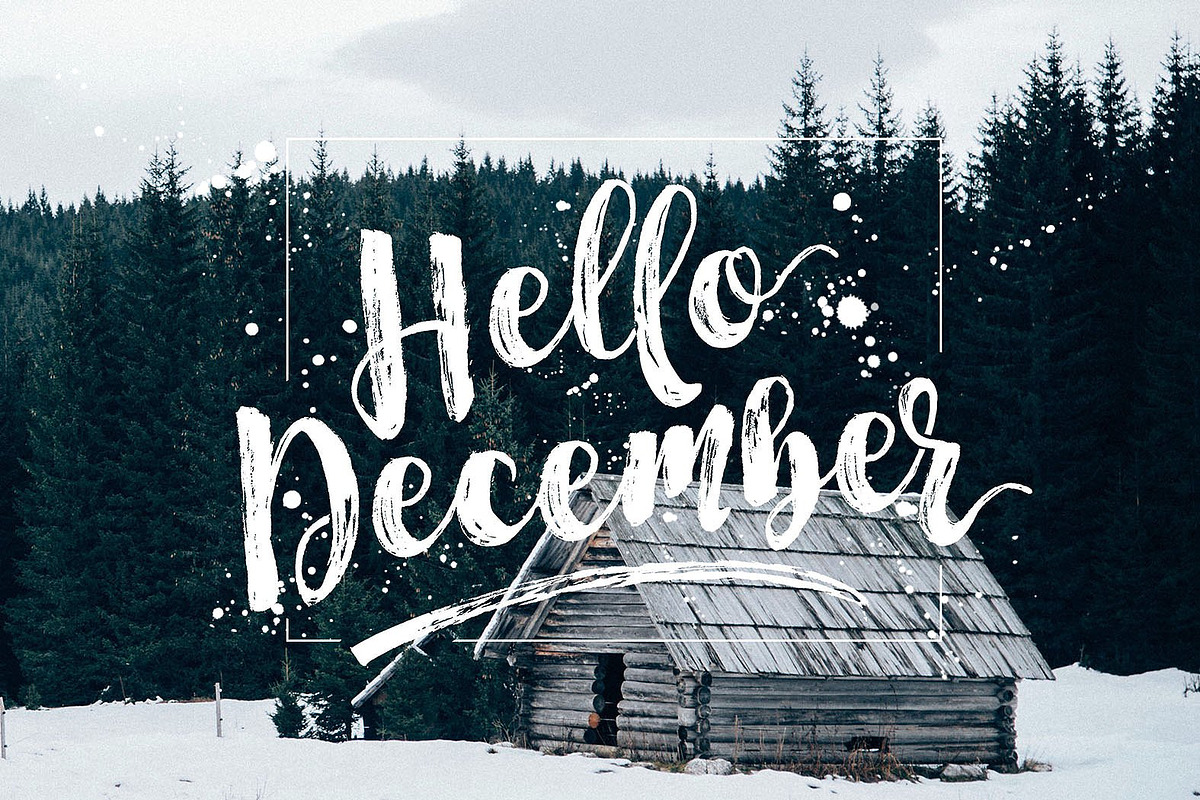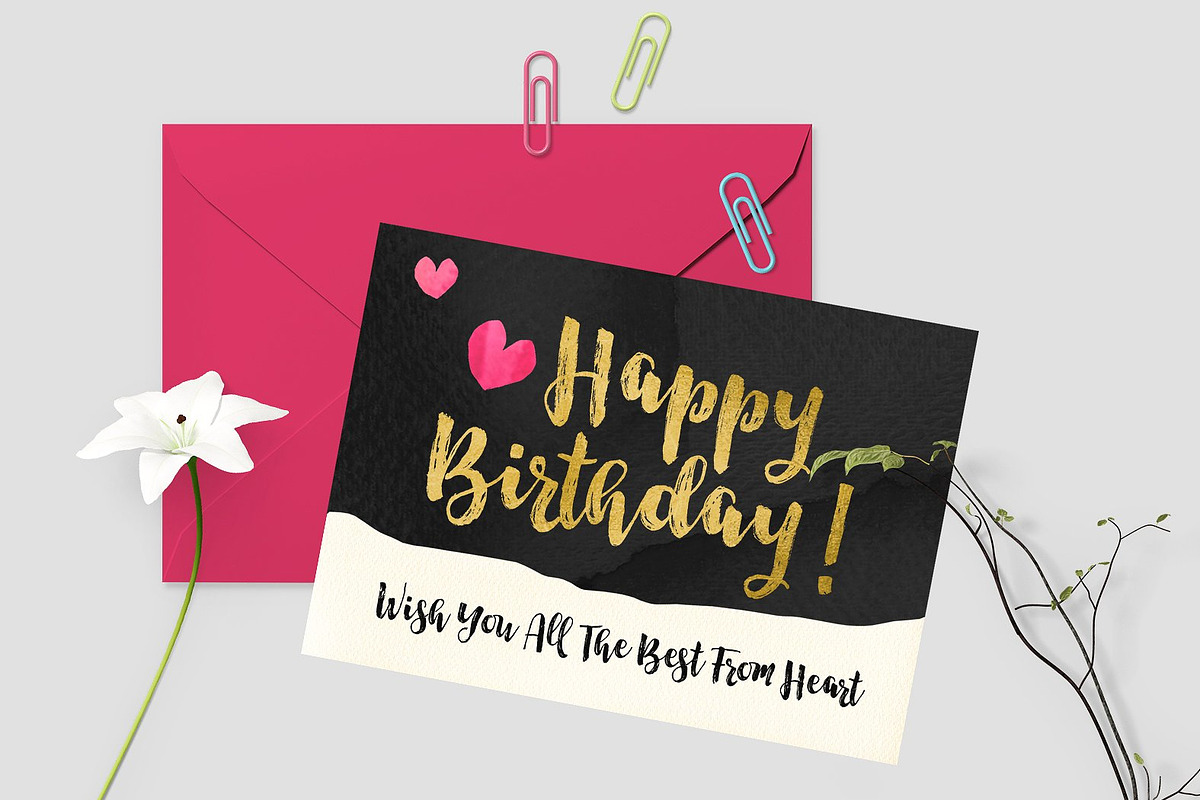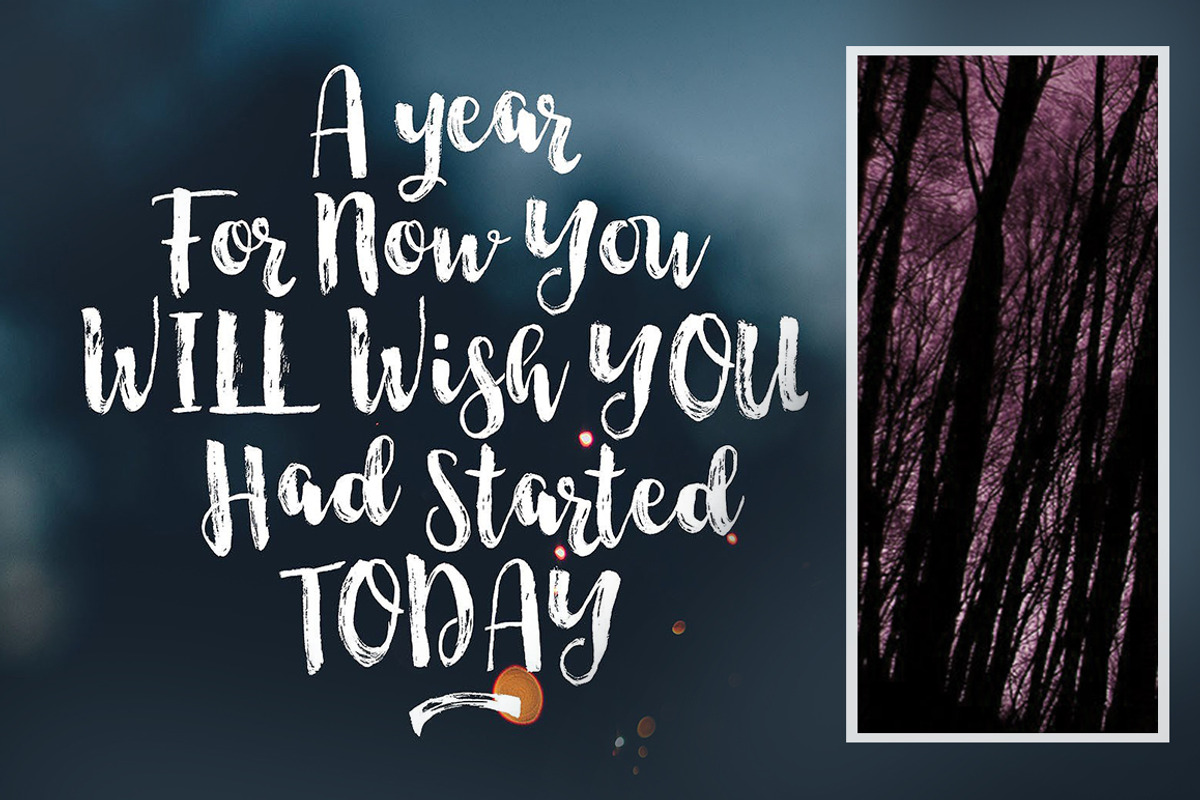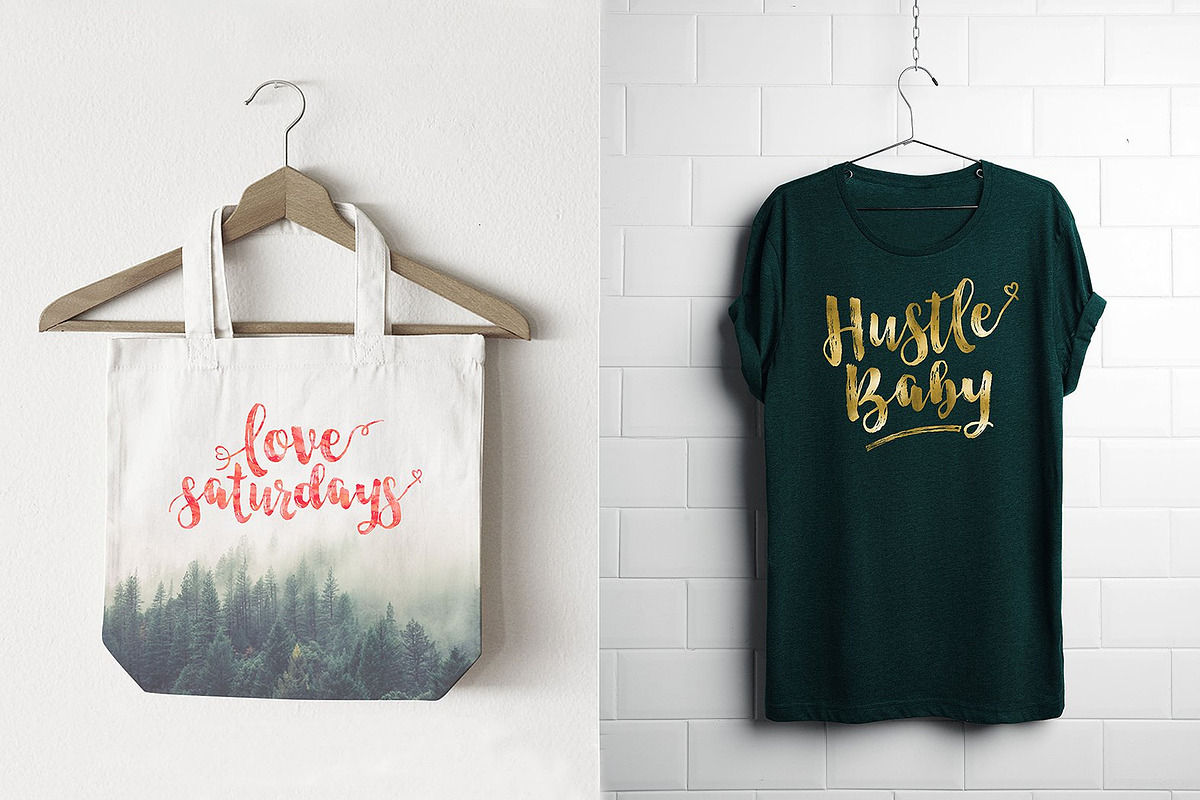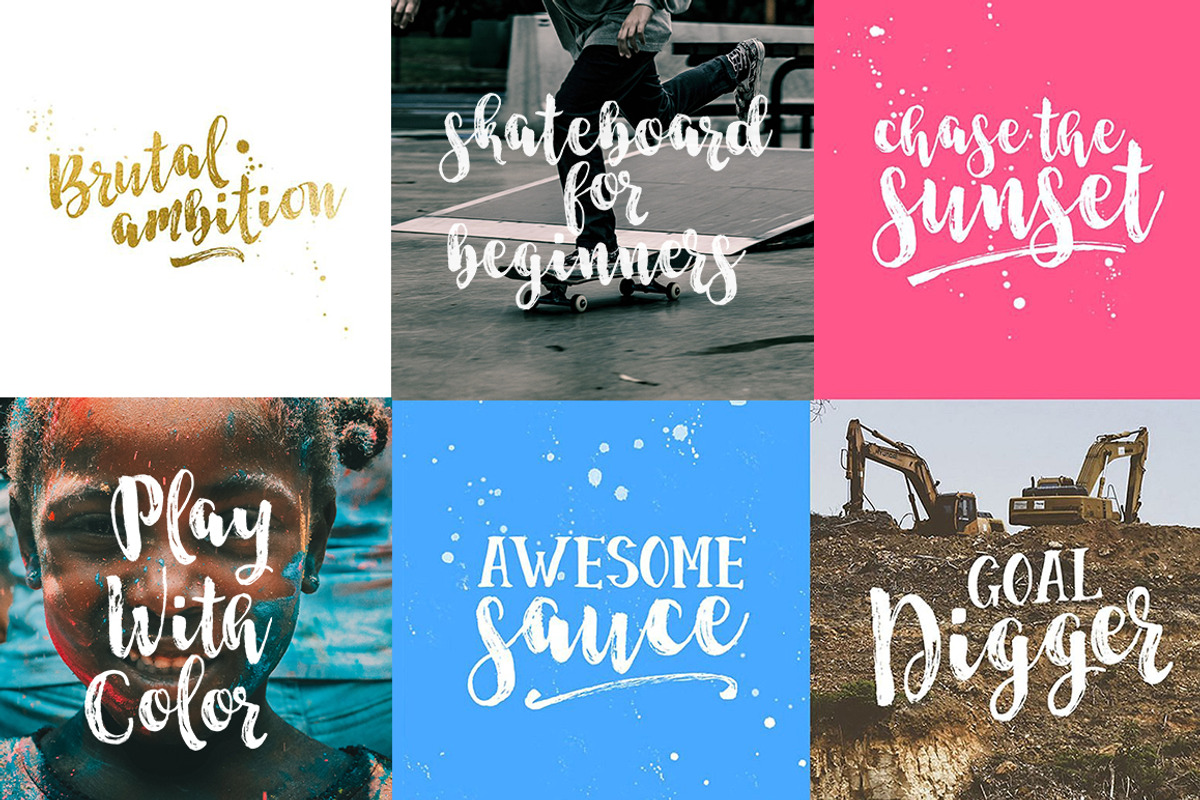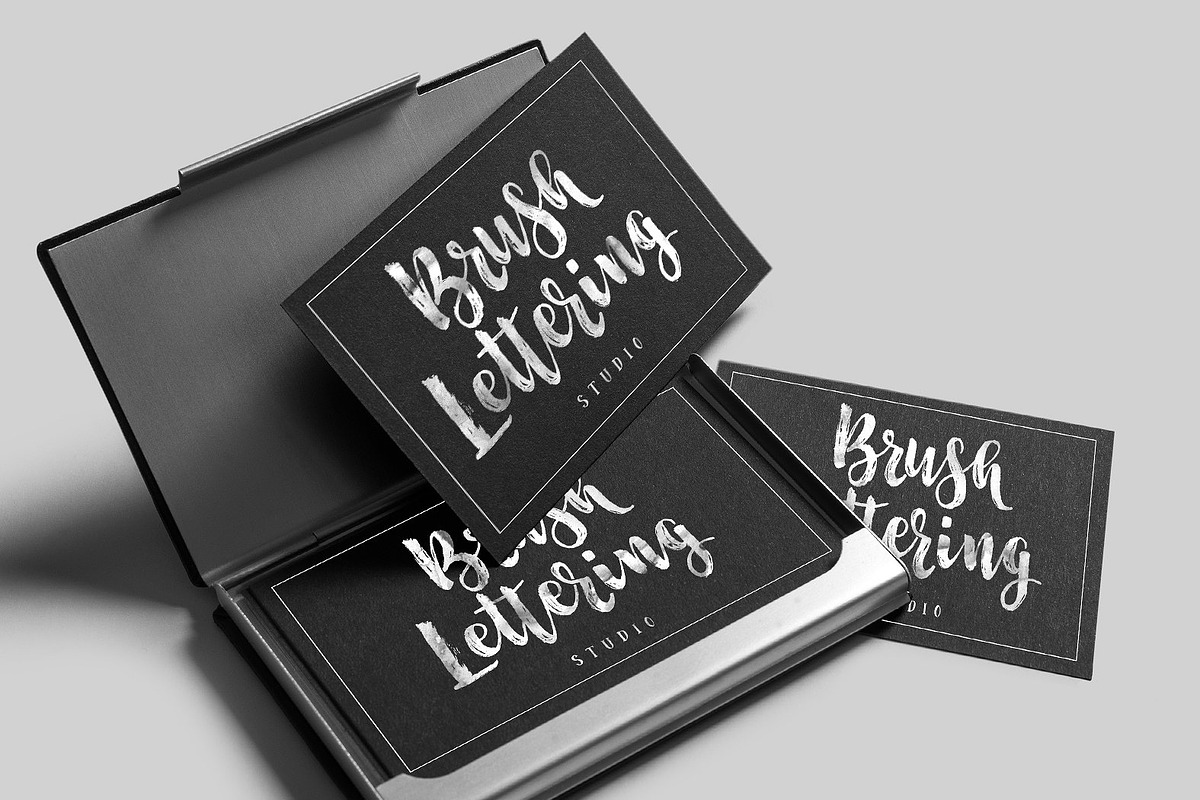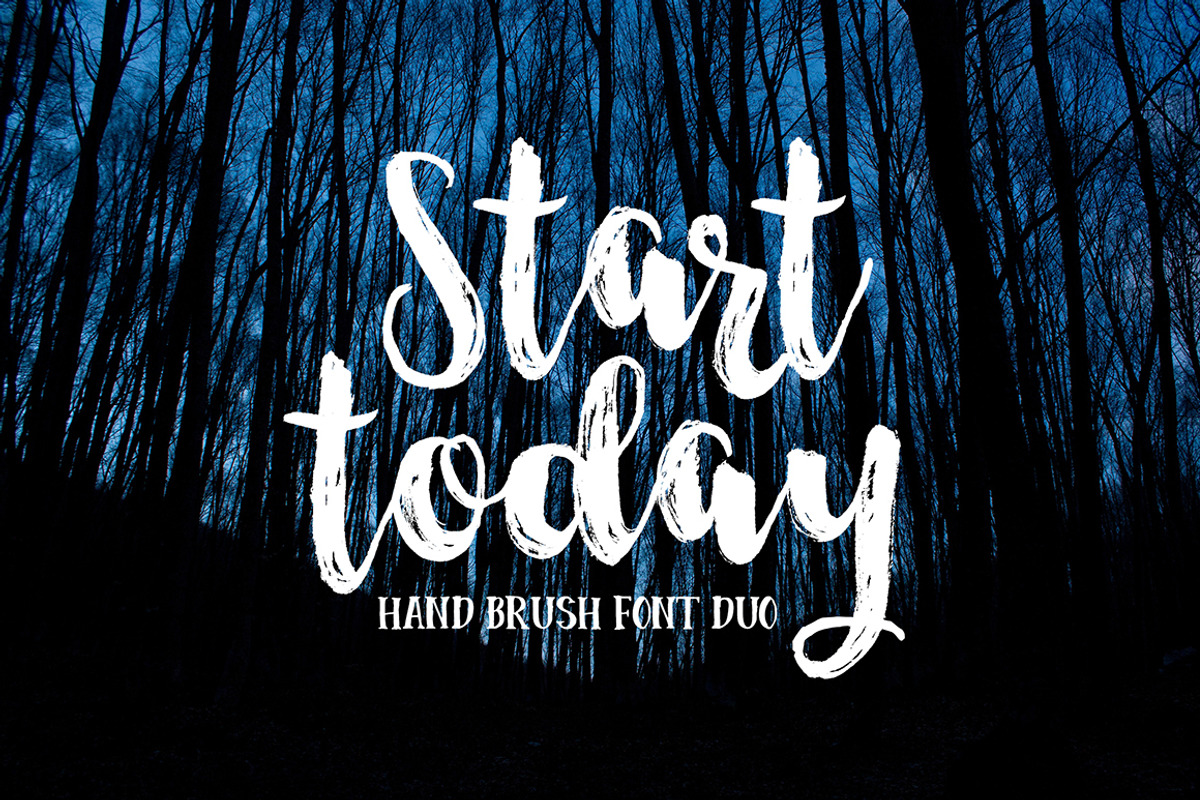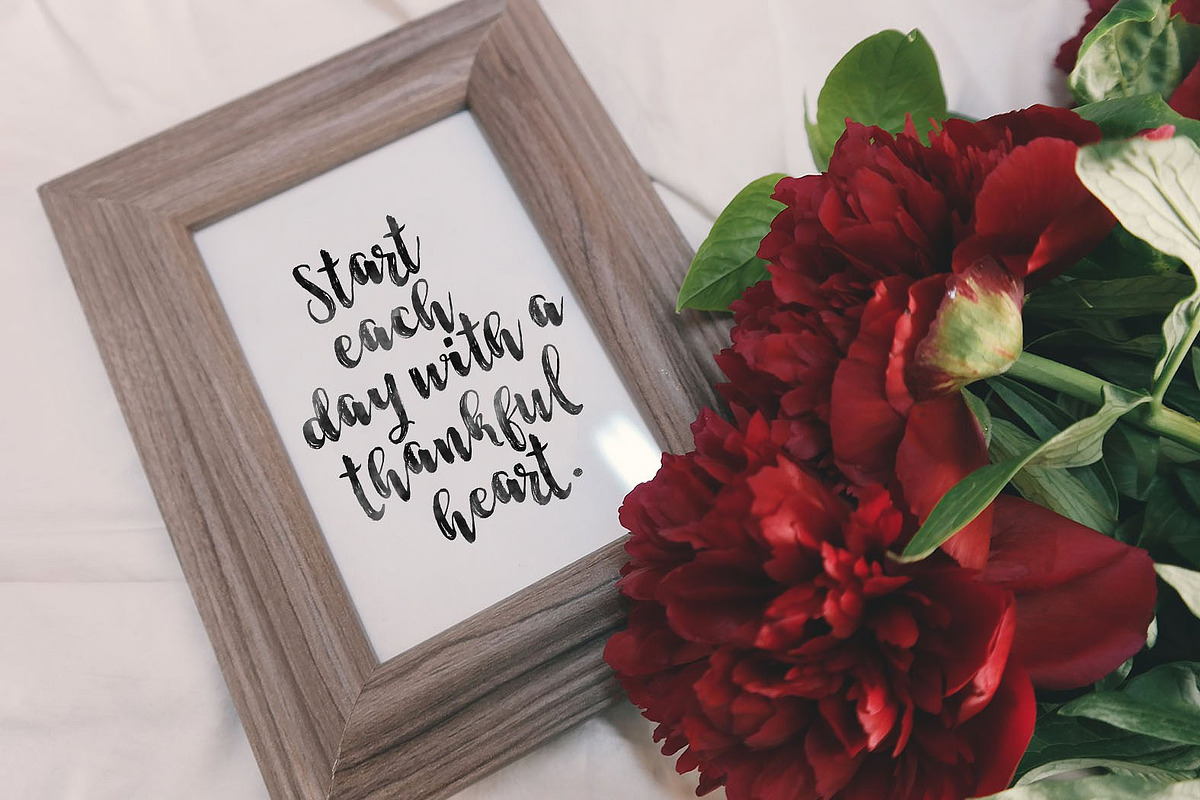
Start Today - Brush Font Duo
Start Today - Brush Font Duo by Dhan Studio is a font selected for branding, posters, packaging, typography.
- Start Today is a super casual hand brushed script with detailed brush stroke texture, and a quirky, all uppercase sans serif font, also has
Why Start Today - Brush Font Duo is worth a look
Start Today - Brush Font Duo by Dhan Studio fits naturally into Branding, posters, packaging, typography.